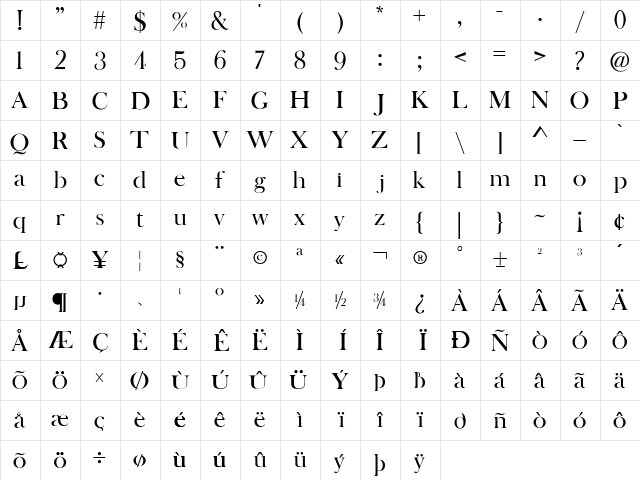
BOSQUE Regular
| Foundry | Creative LAB |
| Designer | Rahmatillah |
Design Context for BOSQUE Typeface
BOSQUE takes a measured approach to typography — its balanced proportions and neutral character make it a reliable workhorse for both digital and print work.